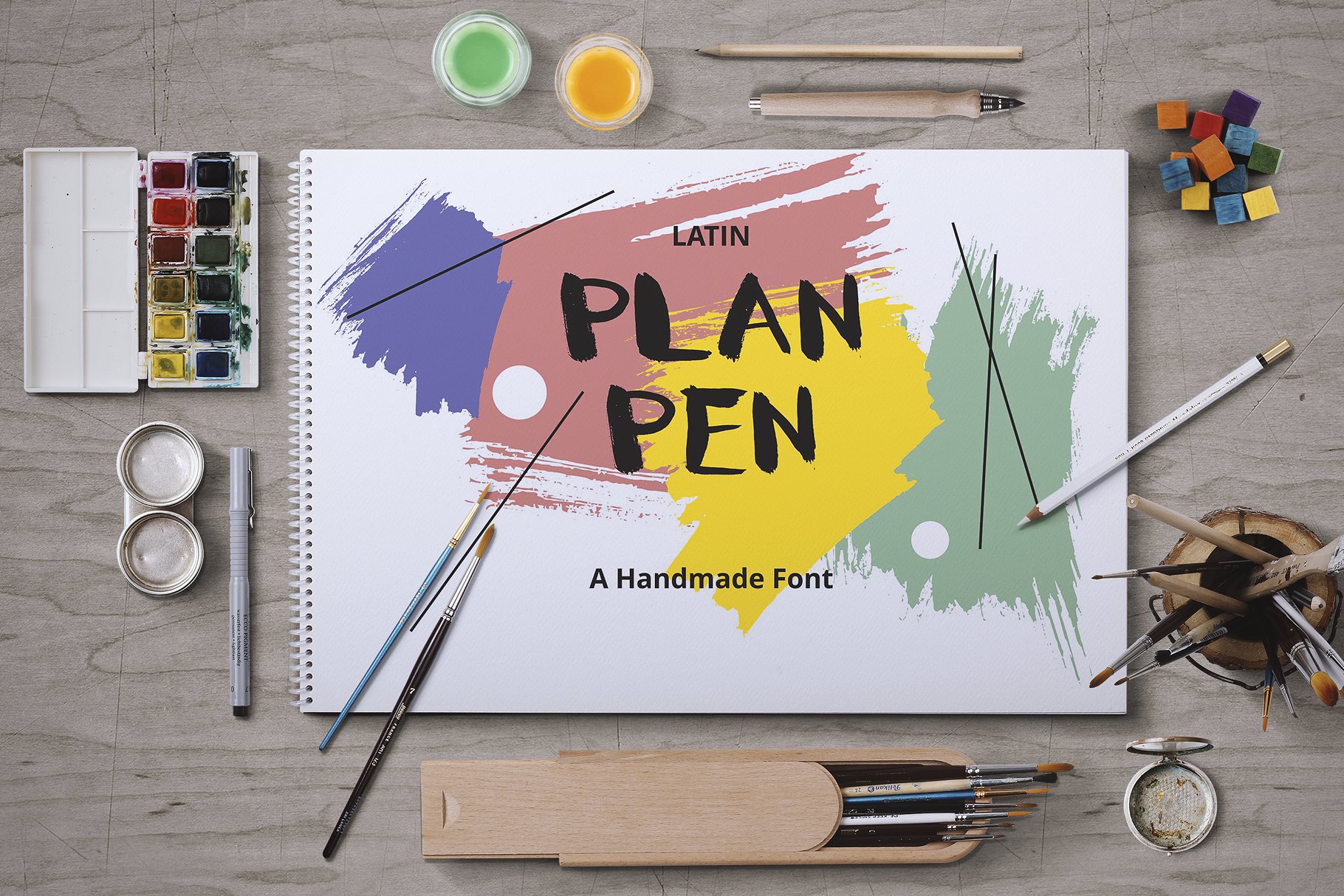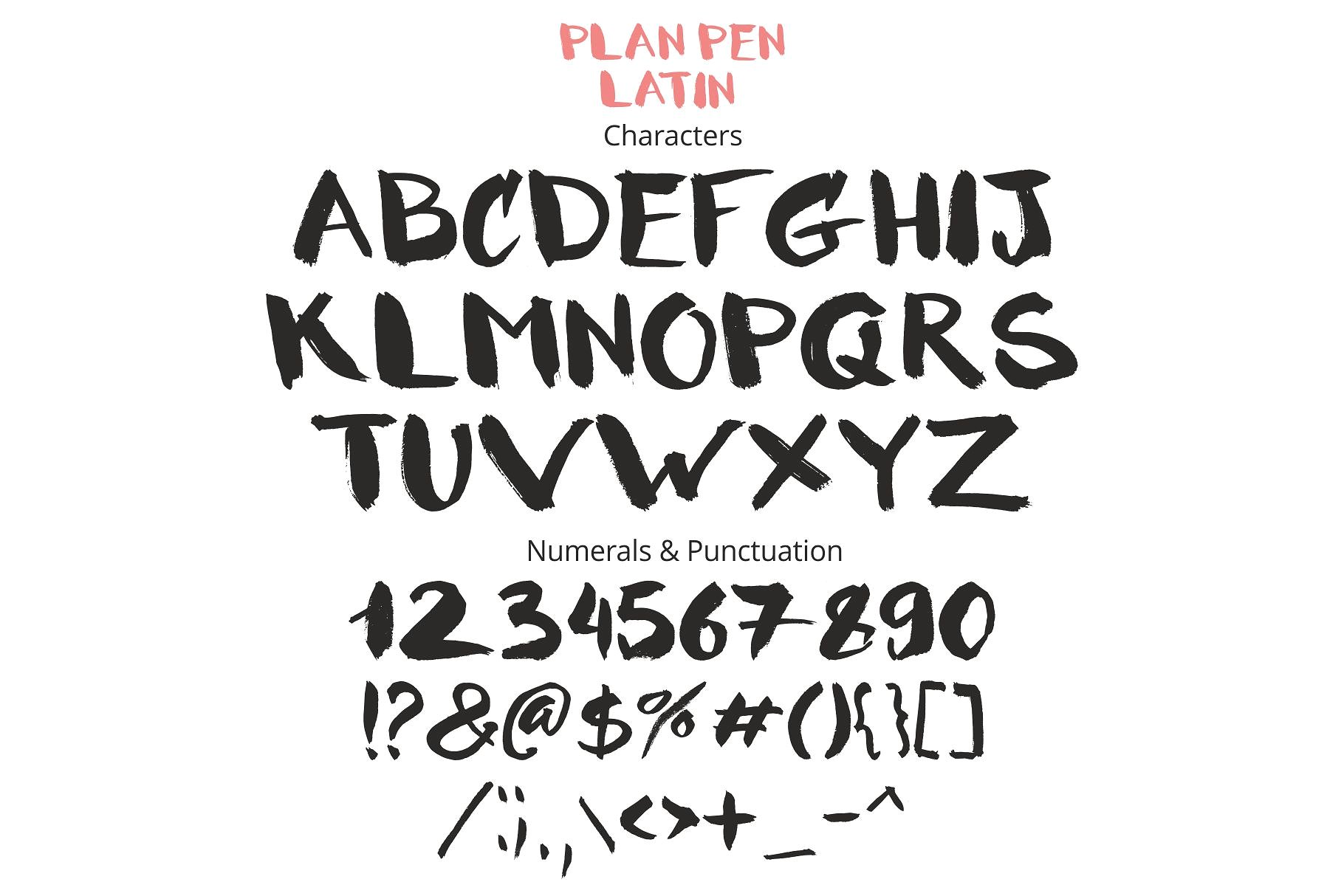
Handmade font – Plan Pen with latin letters! Brush strokes and hand-drawn lettering, inspired me to create this font. Plan Pen font contains latin letter set, numerals and punctuation. This font work nicely for all sorts of things including t-short design, typographic art, social media images and so much more!
Font features: Standard characters A-Z, 0-9, and punctuation for the Latin Basic and Western European set.